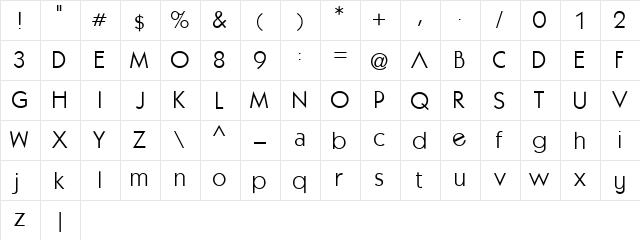
Almaz_Demo Regular
| Designer | Silveria |
Design Context for Almaz_Demo Typeface
Almaz_Demo is a composed and adaptable typeface that performs quietly and consistently across a wide range of design contexts.